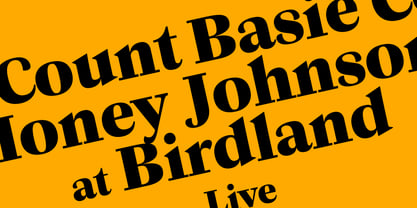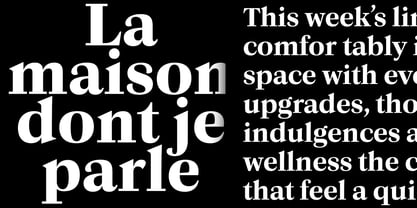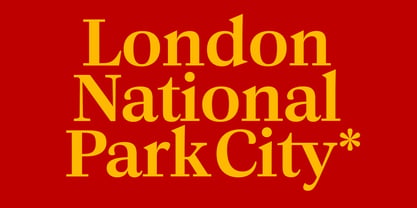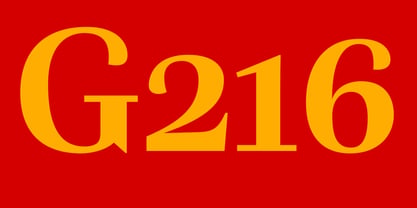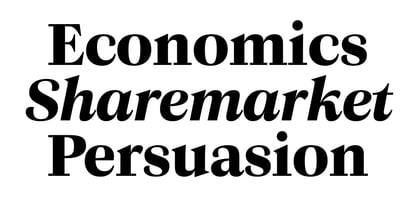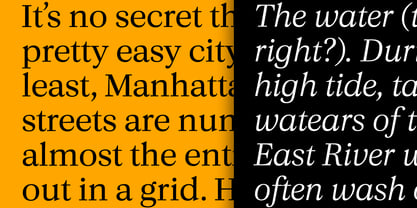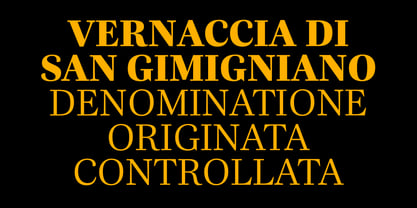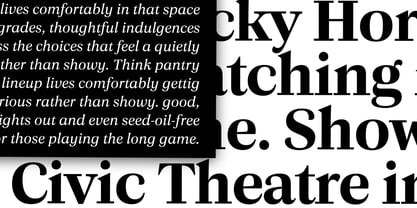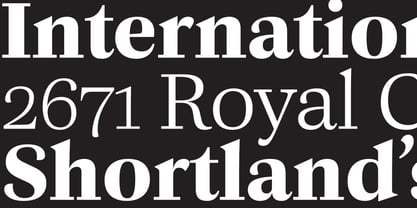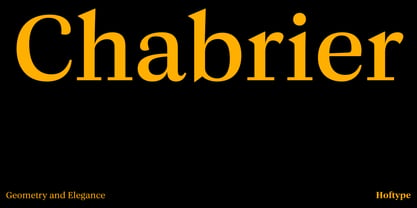
Chabrier
The Chabrier Font Family was designed by Dieter Hofrichter and published by Hoftype. Chabrier contains 14 styles and family package options. More about this family
Chabrier combines graphic precision with elegant fluidity. Despite its classical elements, Chabrier features flowing, stylistically distinctive details, lending its appearance a charming quality. The robust strength of the hairlines makes Chabrier an exceptionally legible text font with a distinctive character. The Chabrier family consists of 18 styles, provides many features which allow its application for ambitious typography. All weights contain small caps, ligatures, superior characters, proportional lining figures, tabular lining figures, proportional old style figures, lining old style figures, matching currency symbols, fraction- and scientific numerals, matching arrows and some alternate characters.